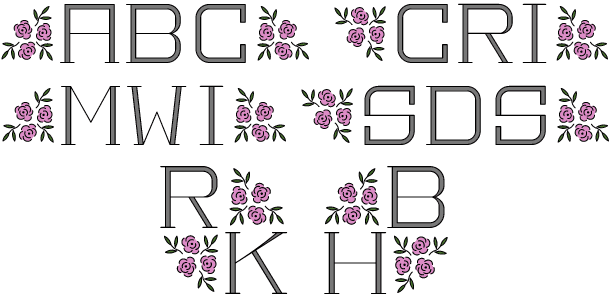
About Peony Monogram
The inspiration source for Peony Monogram was a unique stackable monogram design with floral accents from a vintage embroidery publication. Originally intended to adorn handkerchiefs, this simple pattern has so many design possibilities, from colorizing…